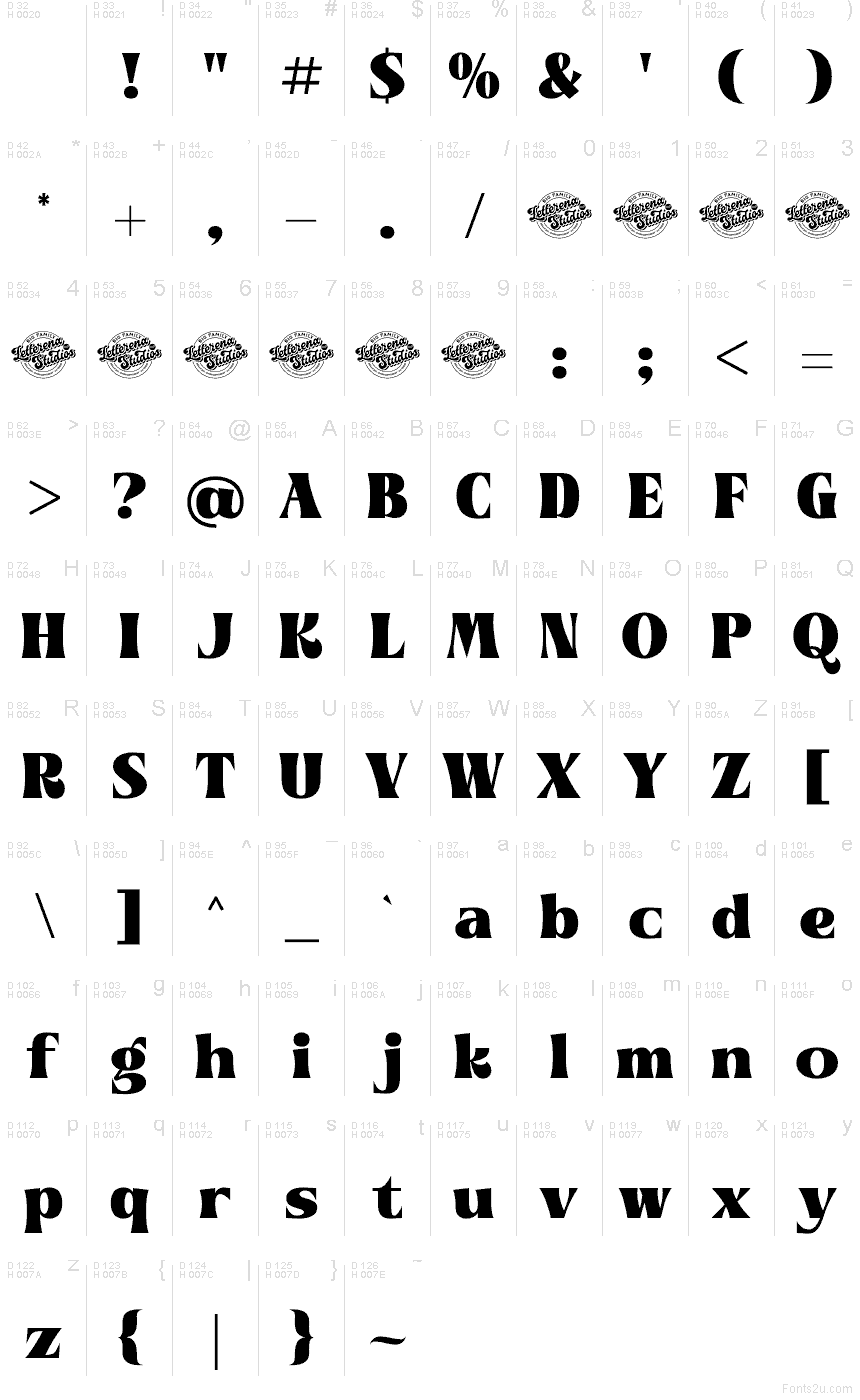
Andera Ninefold font by Letterena Studios is a free serif typeface with a bold, sculpted presence that feels carved rather than drawn. The hefty verticals and generously flared serifs create a solid, almost architectural rhythm, while the tight curves keep it from feeling stiff. It looks inky and substantial on the page, giving titles and names a sense of weight and ceremony without slipping into old-fashioned fussiness.
Using Andera Ninefold, headlines and wordmarks snap into focus, making it a natural fit for branding, book covers, posters, album art, and statement social graphics. This free font holds its shape beautifully at large sizes, especially with a touch of extra tracking to let the heavy forms breathe. Pair it with a simple, neutral sans serif for body copy to let Andera Ninefold carry the spotlight.